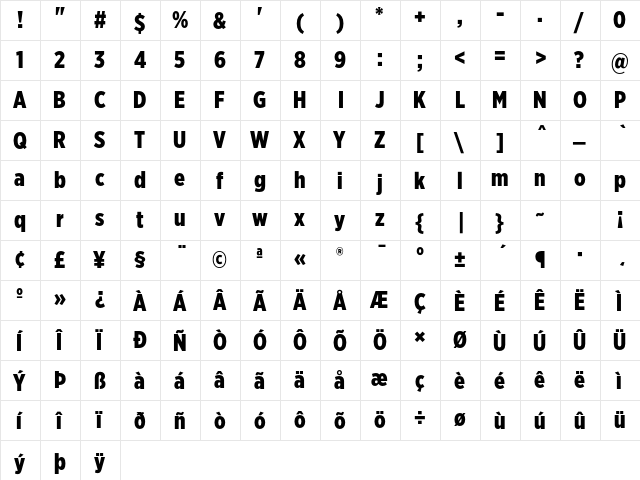
Gotham XNarrow Black
| Foundry | Hoefler & Frere-Jones |
| Designer | Hoefler & Frere-Jones |
Design Context for Gotham XNarrow Typeface
Gotham XNarrow offers clean, dependable letterforms without strong stylistic allegiance, making it a practical choice for designers who need flexibility. Its narrow stance lets it pack a punch even in space-constrained designs.